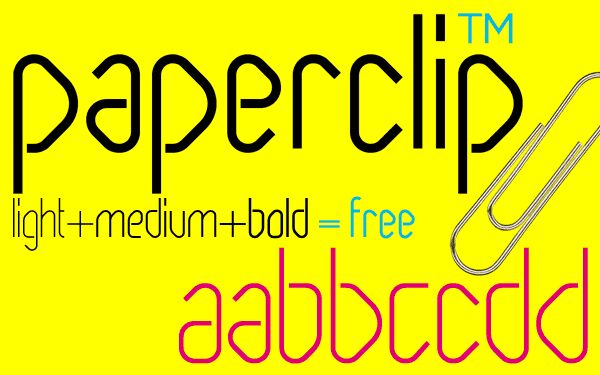
Paperclip by Jan Schmoeger of Paragraph is a free futuristic monoline display font built from smooth, near-continuous strokes and rounded turns. Its open joins recall wire bent into letterforms.
It is especially convincing in technology branding, where the spare geometry can suggest cables, circuits, or product outlines without copying them literally. The same clean construction also suits electronic music posters and packaging. For games and digital graphics, the looping line belongs naturally to optimistic science fiction rather than hard-edged cyberpunk.